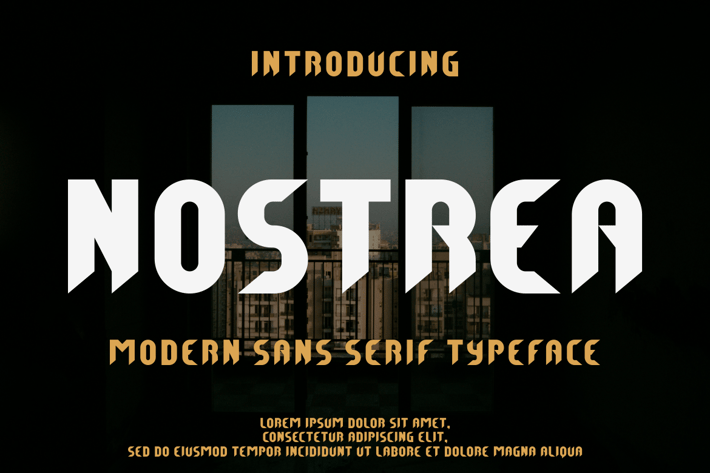
NOSTREA FONT
Introducing our new product NOSTREA FONT - Modern Font
NOSTREA FONT - Modern Font is a bold and authentic display font. The font is suitable for any branding project like logo, t-shirt printing, esport, and many more. outstanding in a wide range of contexts.